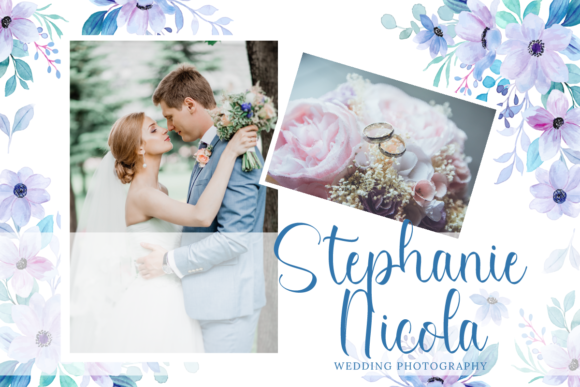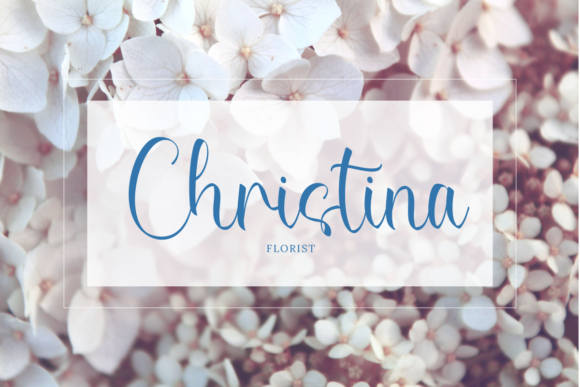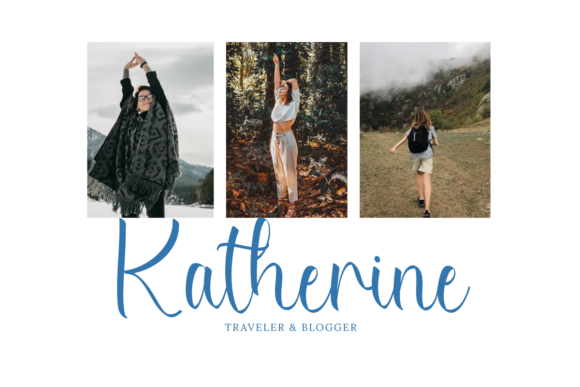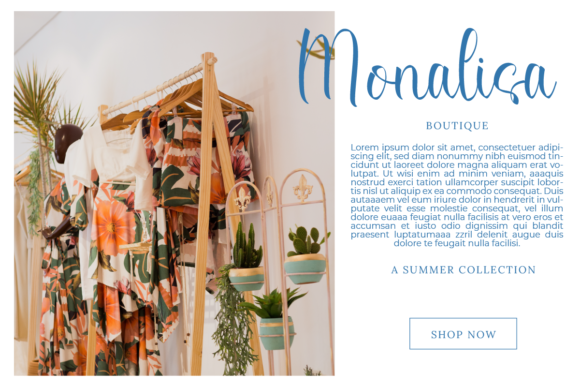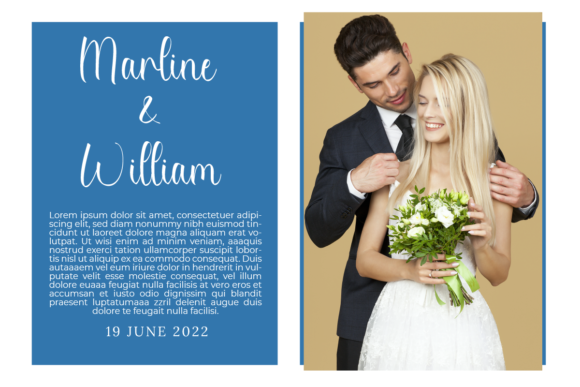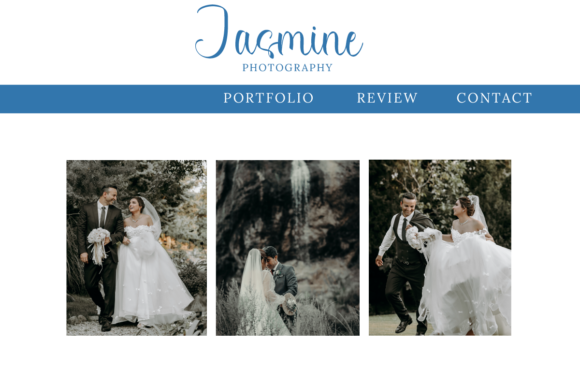
Introduction to Patricia Kaitlynn Font
Have you ever stumbled upon a font that makes your design dreams come true? For designers, finding the perfect font can be a game-changer. It’s like stumbling upon a hidden treasure that elevates your creative project to the next level. For those who have experienced this joy, we’re excited to introduce you to the Patricia Kaitlynn Font.
This beautiful, delicate script font is a design resource that will make your branding projects shine. Whether you’re creating a logo, designing a t-shirt, or developing creative products, the Patricia Kaitlynn Font is the perfect companion. Its high-quality design and versatility make it an ideal choice for designers who want to add a touch of elegance and sophistication to their work.
What sets Patricia Kaitlynn Font apart is its availability for free download, making it an accessible design resource for creatives of all levels. With its transparent background and intricate details, this font is sure to leave a lasting impression on your audience.
Key Features of Patricia Kaitlynn Font
• High-quality, professional font suitable for various creative projects, including graphic design, web design, and print materials.
• Features a unique and elegant design with a transparent background, allowing for easy integration with various backgrounds and designs.
• Includes a range of characters, including uppercase and lowercase letters, numbers, and punctuation marks, making it a versatile font for various applications.
• Perfect for use in headings, titles, and body text, adding a touch of sophistication and elegance to any creative project.
Honest Review: Patricia Kaitlynn Font
I recently had the chance to work with the Patricia Kaitlynn Font, and I’m excited to share my thoughts on this lovely design resource. Overall, I’m impressed with the quality and versatility of this font.
• High-quality design: The Patricia Kaitlynn Font has a crisp, clear appearance that makes it perfect for a wide range of creative projects.
• Transparent background: This font is available with a transparent background, making it easy to integrate into your designs without worrying about a distracting background.
• Limited customization options: While the font itself is high-quality, I found that there are limited options for customization, which may be a drawback for some designers.
• Not suitable for complex projects: While the font is great for simple designs, it may not be the best choice for complex projects that require multiple fonts and styles.
Overall, I’m impressed with the Patricia Kaitlynn Font, and I would definitely recommend it to designers looking for a high-quality, free design resource. With its crisp design and transparent background, it’s perfect for a wide range of creative projects.
Introduction to Patricia Kaitlynn Font
The Patricia Kaitlynn Font is a high-quality, free download font perfect for your creative project. With its elegant and sophisticated design, it’s ideal for various applications, from wedding invitations to business cards.
Tips for Getting the Most Out of Patricia Kaitlynn Font
To get the most out of the Patricia Kaitlynn Font, use it in combination with other design elements to create a cohesive and visually appealing design. Experiment with different font sizes, colors, and layouts to achieve the desired effect.